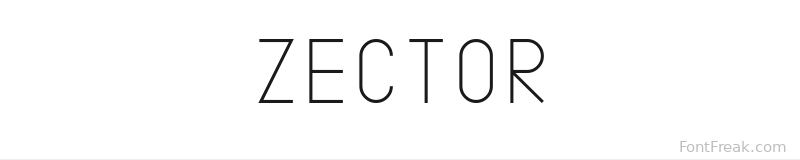
Zector
Zector is a striking sans-serif font designed by GGBot, characterized by its contemporary and clean aesthetic. This font features a balanced stroke weight that enhances legibility while maintaining a modern flair. With minimal contrast between thick and thin strokes, Zector exhibits a uniformity that makes it versatile for various design applications. The spacing is well-considered, allowing for excellent readability in both large and small text, making it suitable for diverse contexts.
This font shines in a variety of use cases. It is perfect for creating eye-catching movie posters, where its bold yet elegant lines can draw attention to titles and taglines. Additionally, Zector is an ideal choice for digital marketing materials, including social media graphics and promotional flyers, as its clean design enhances visual appeal. Small business owners will find it beneficial for restaurant menus and branding materials, where clarity and style are paramount. Furthermore, graphic designers can utilize Zector in website headings or logo designs, ensuring a professional look that resonates with audiences.
What sets the Zector font apart is its ability to combine modernity with simplicity, making it a versatile choice for a multitude of design needs. Its understated elegance ensures that it will enhance any project without overshadowing the content, making the Zector font free download a valuable addition to any designer’s toolkit.